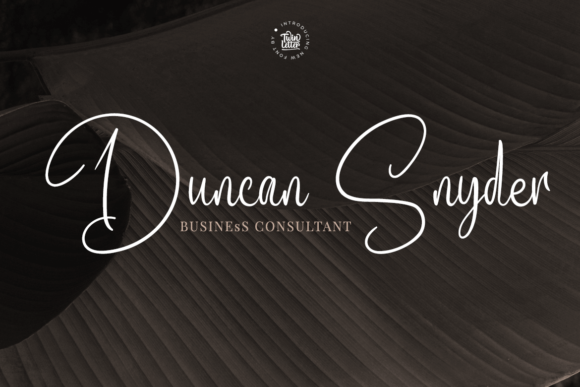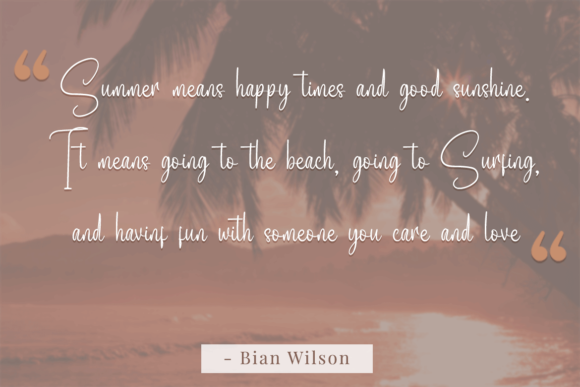
About Adigussto Font
Adigussto is a unique and elegant handwritten font. It looks beautiful on a variety of designs requiring a personalized style, such as wedding invitations, thank you cards, weddings, greeting cards, logos and so on.